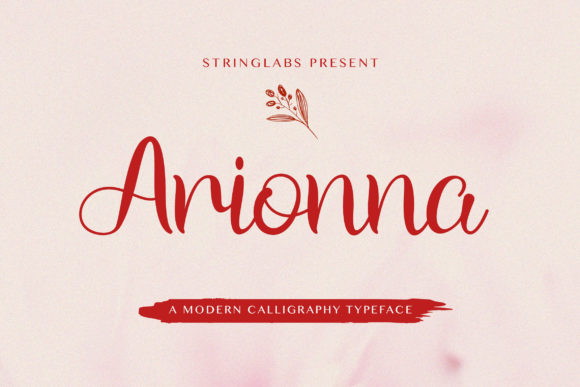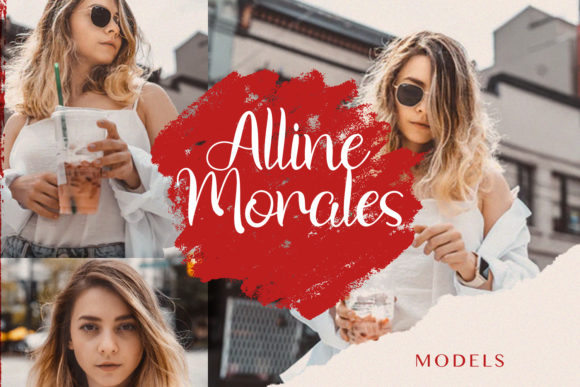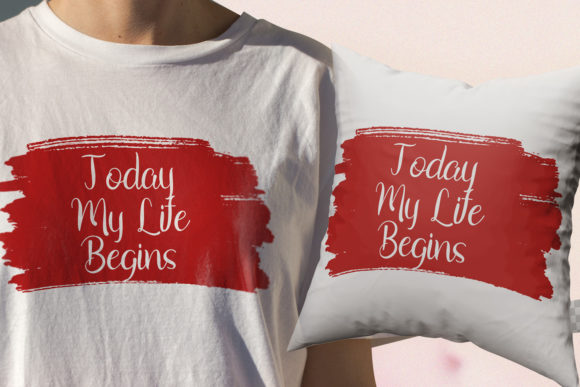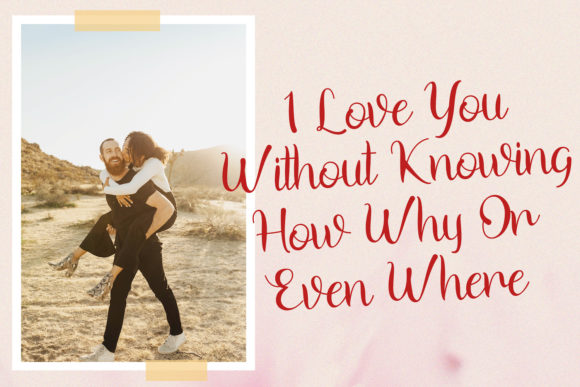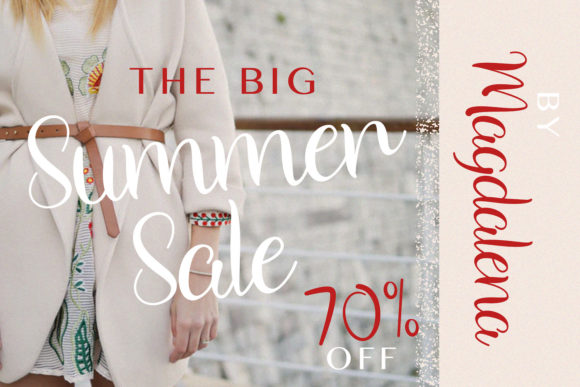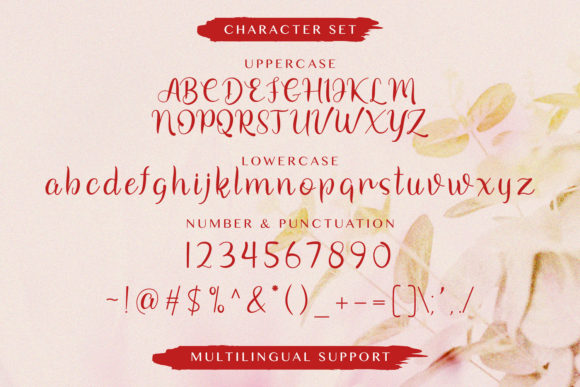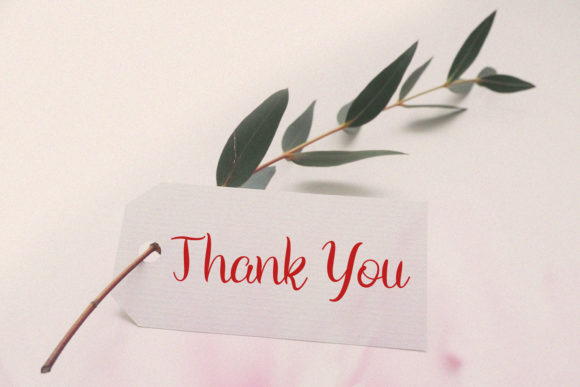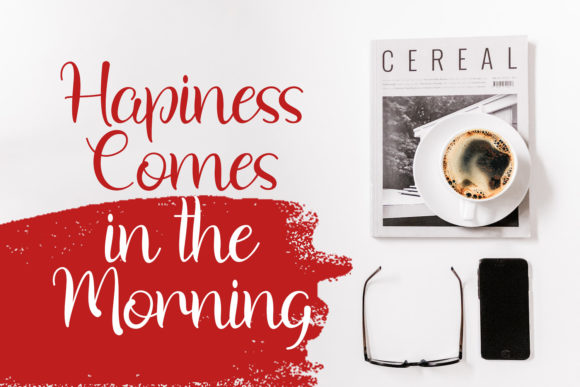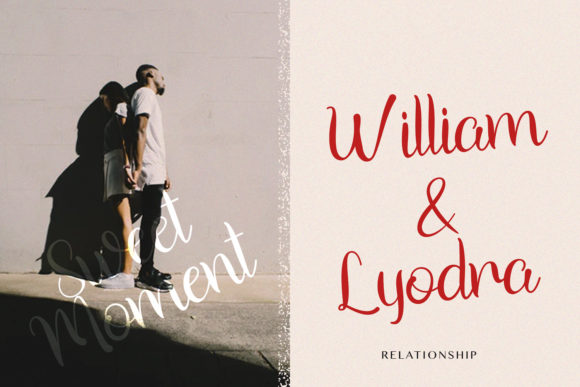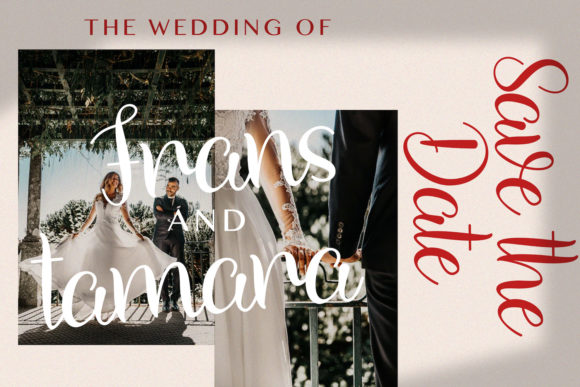
Arionna Font
About Arionna Font
Arionna is a gorgeous script font. It features a calligraphy modern style and cute ligatures. This font is perfect for fashion brand, wedding invitation, business cards, logo, social media posts and much more!